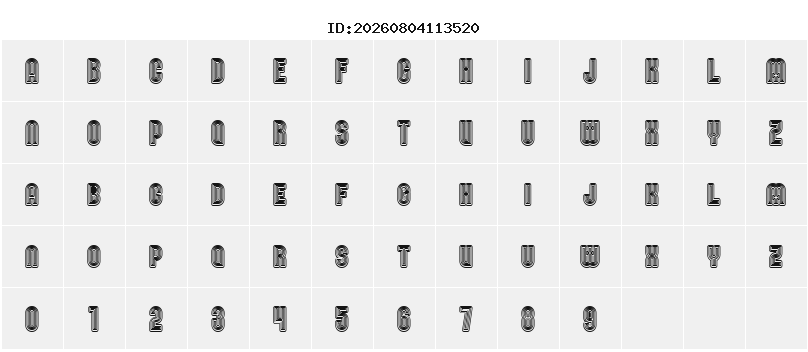
• Font Name: Nomitais
• Font ID: PeterWiegel: Elbaris: 2009
• Full Font Name: Nomitais
• Version: Version 0.001 2009
• PostScript Name: Nomitais
• Character Count: 177
• Designer: Peter Wiegel
• Manufacturer: Peter Wiegel
About Nomitais.ttf
Nomitais.ttf is a modern, elegant sans-serif font designed for ultimate readability and visual harmony. Perfect for branding, headlines, web design, and print materials.